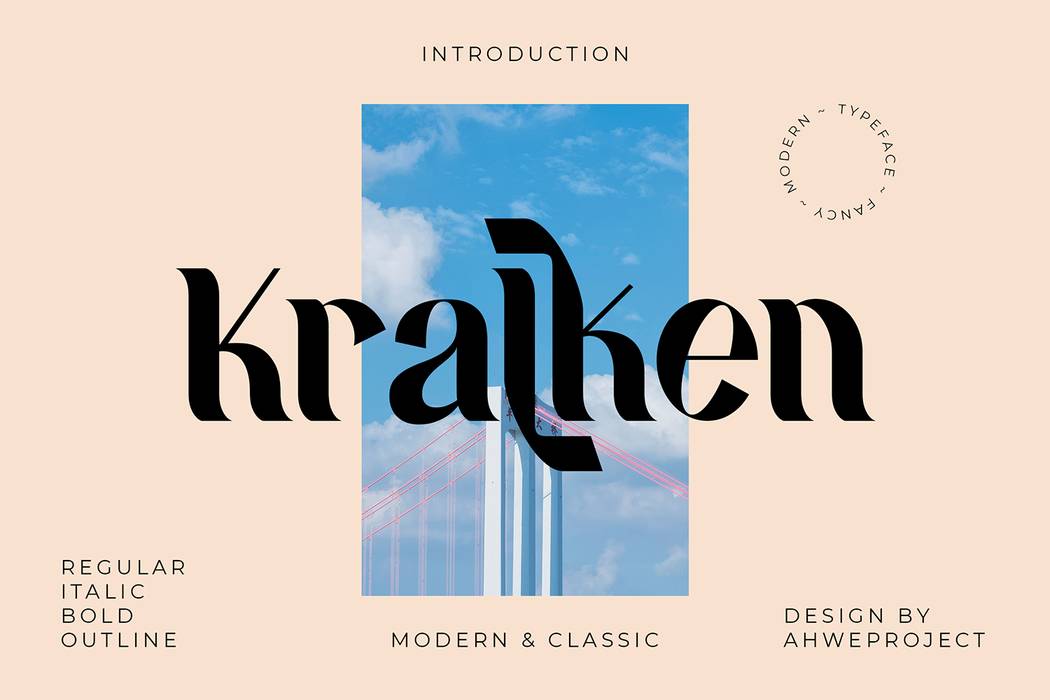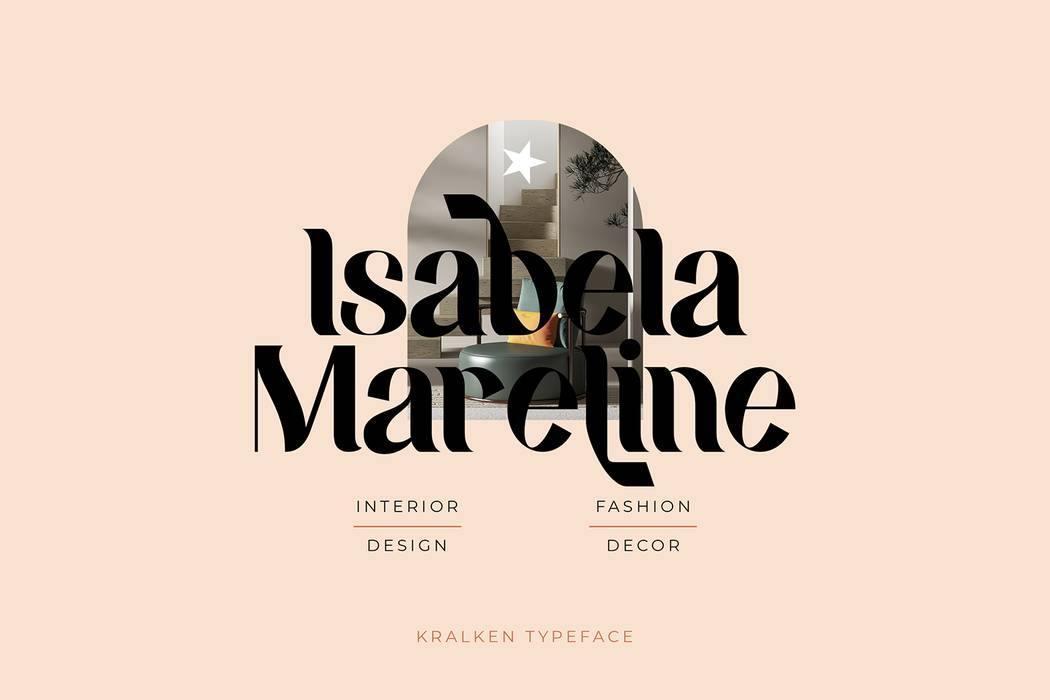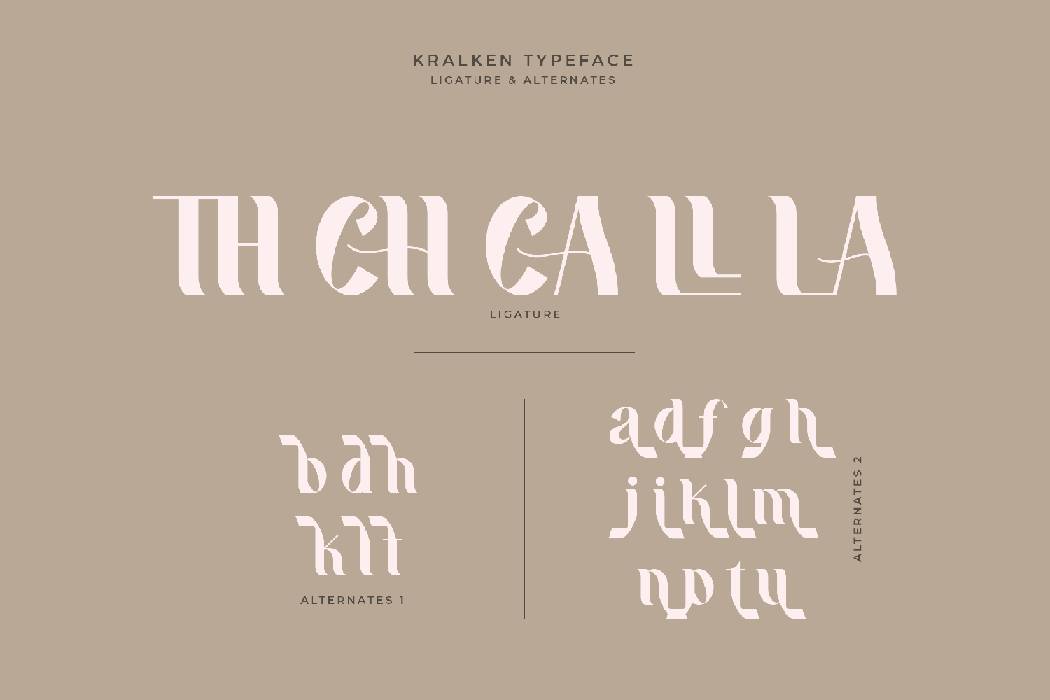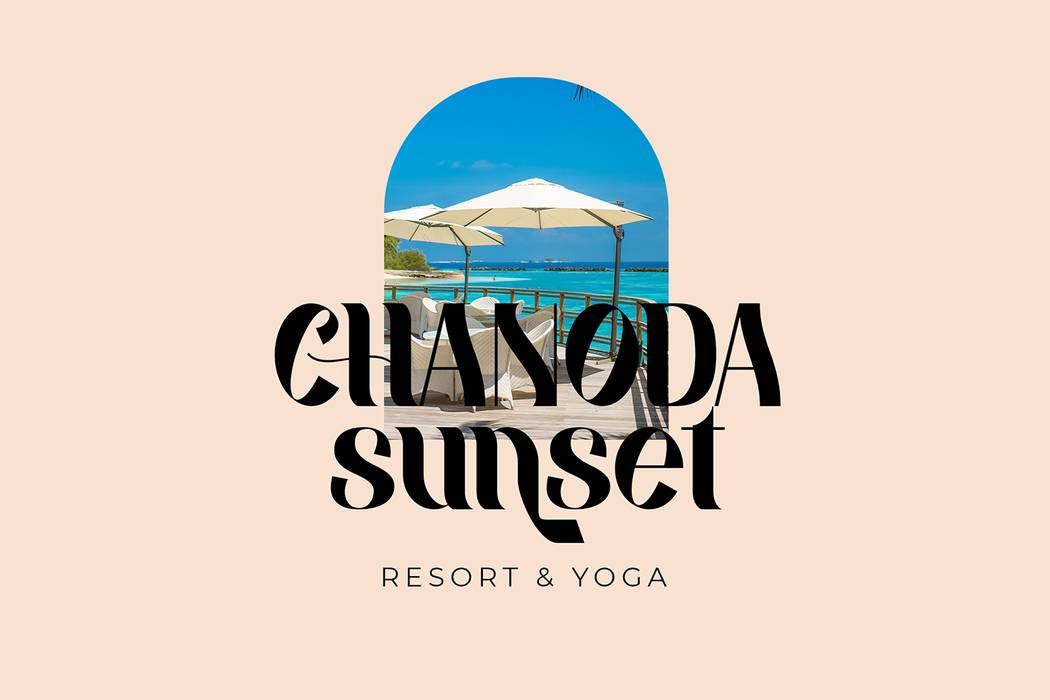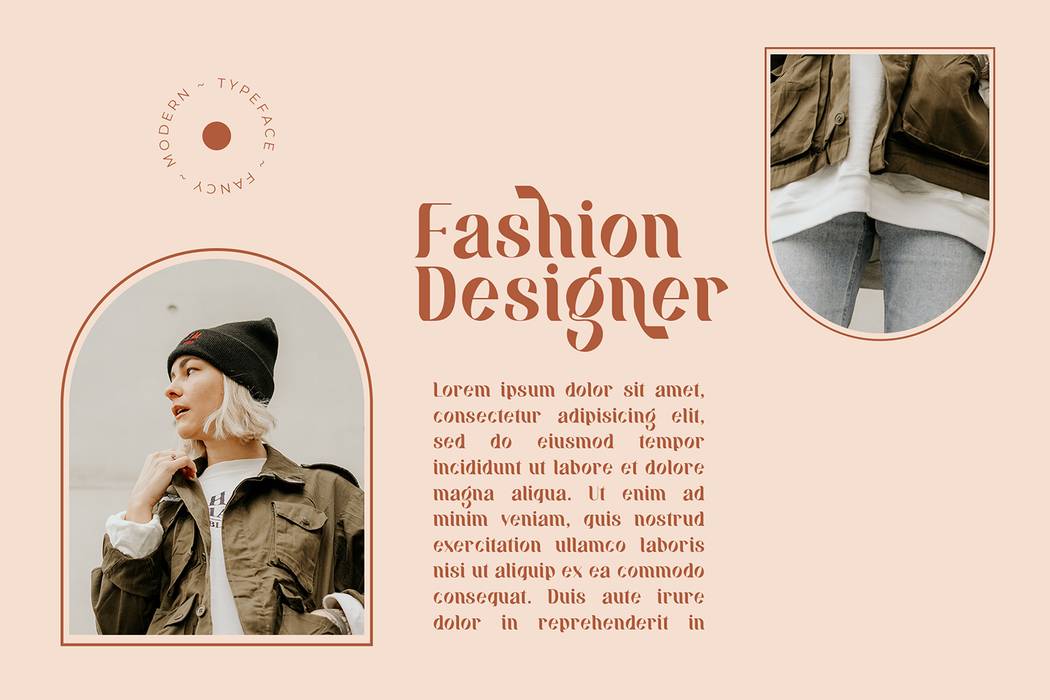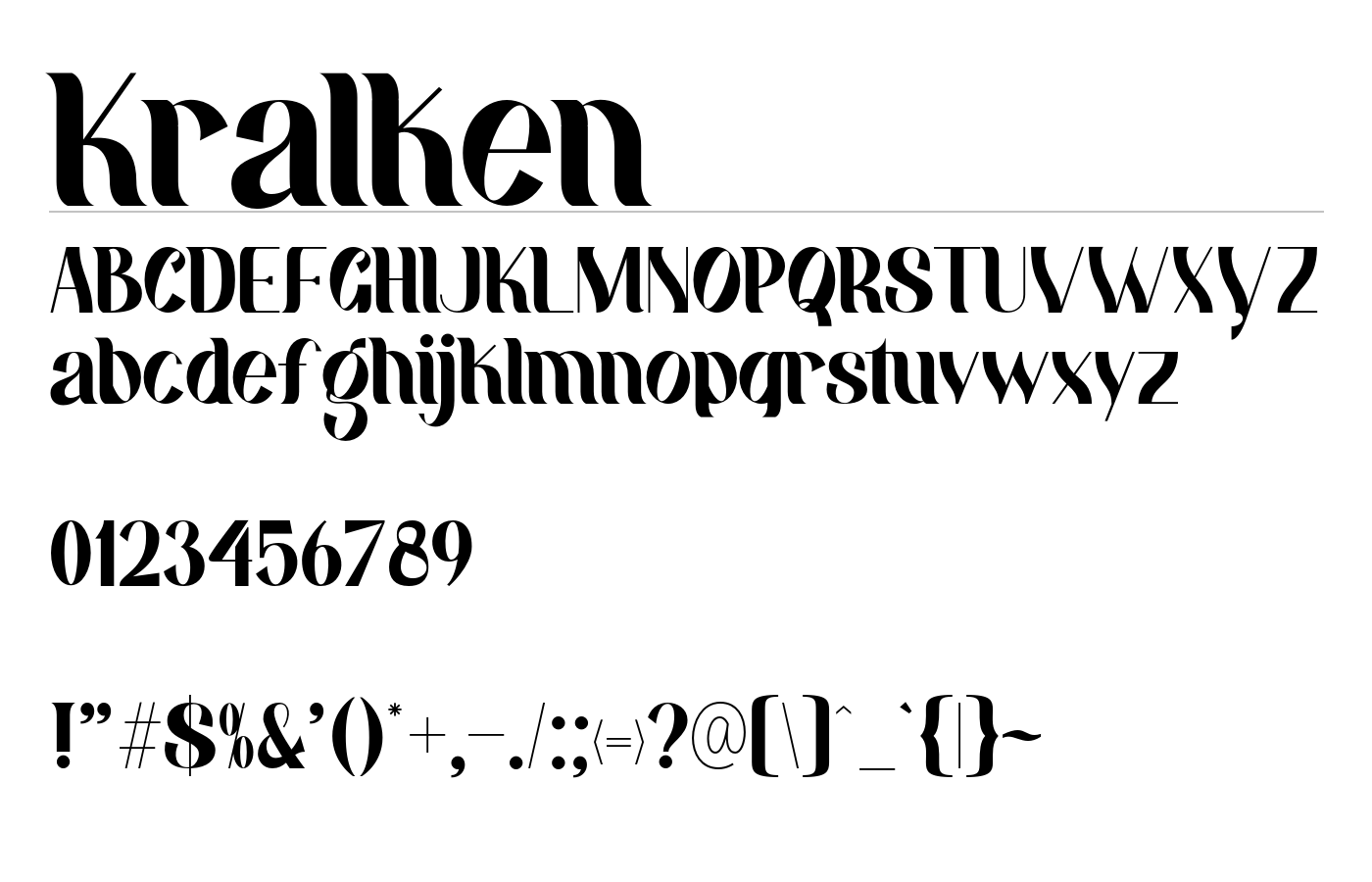
Kralken is a striking serif font with a modern twist, featuring high contrast between thick and thin strokes and sharp, angular details that give it a bold and elegant appearance. Its unique letterforms, including a mix of single and double-story characters, create a dynamic and creative vibe ideal for fashion branding, luxury packaging, and impactful headlines. This font’s dramatic style makes it perfect for designs seeking to convey sophistication with a contemporary edge.
Kralken Font
About Kralken Font